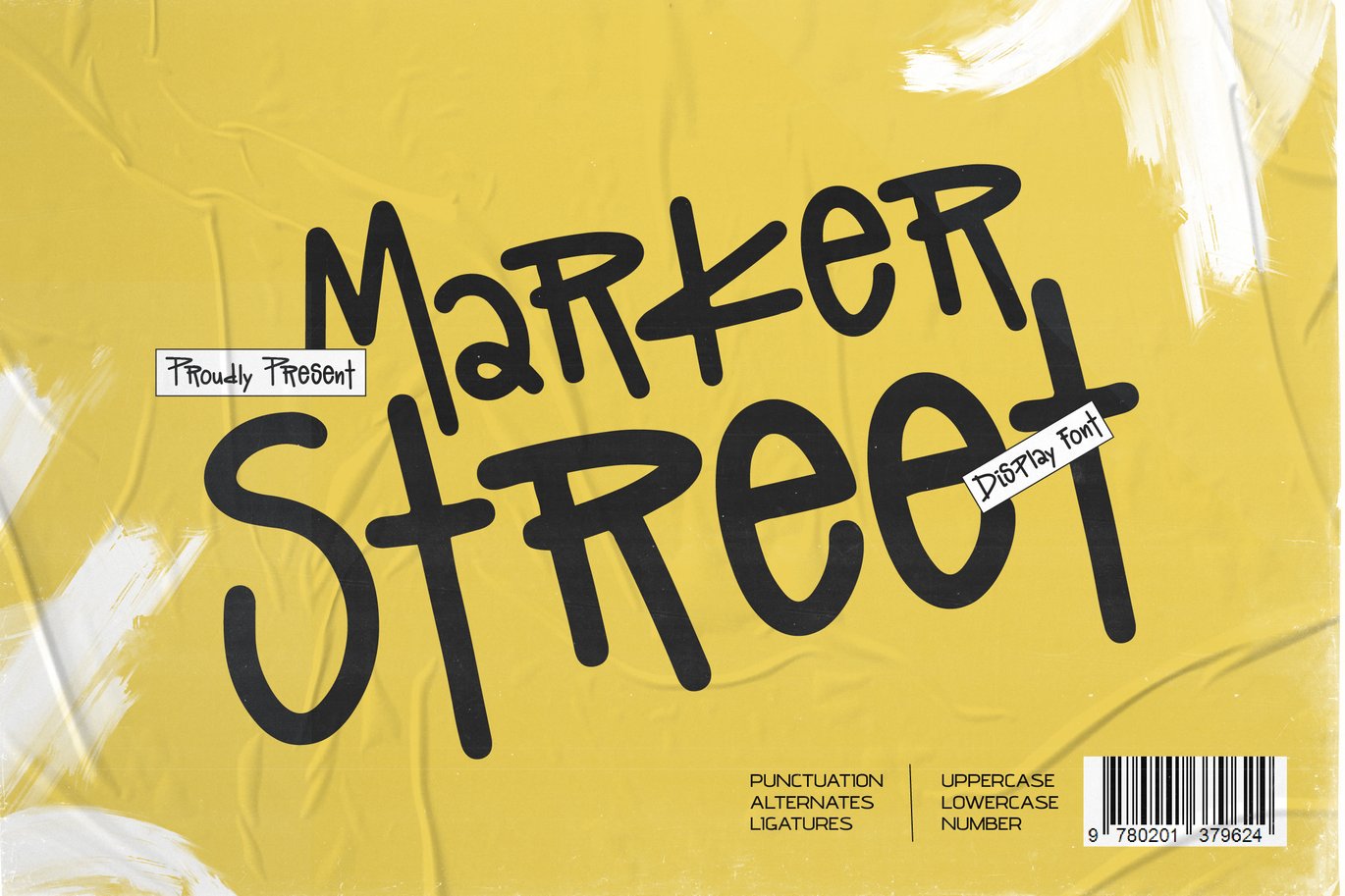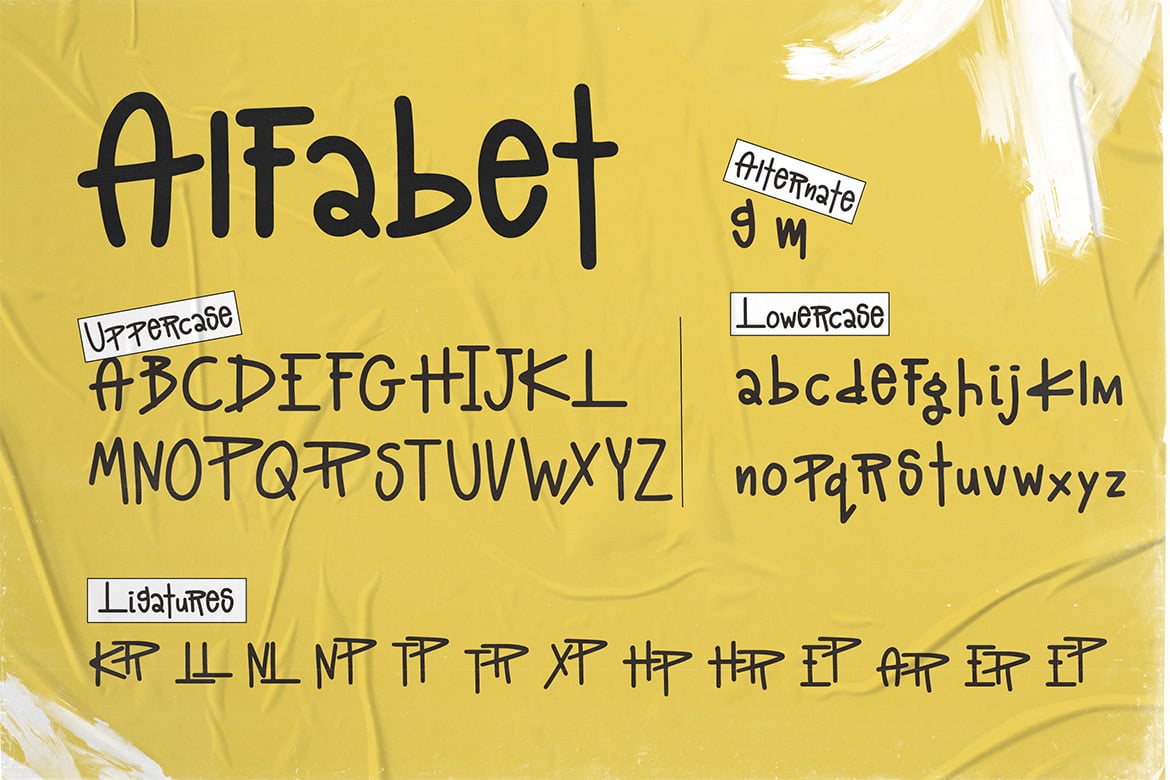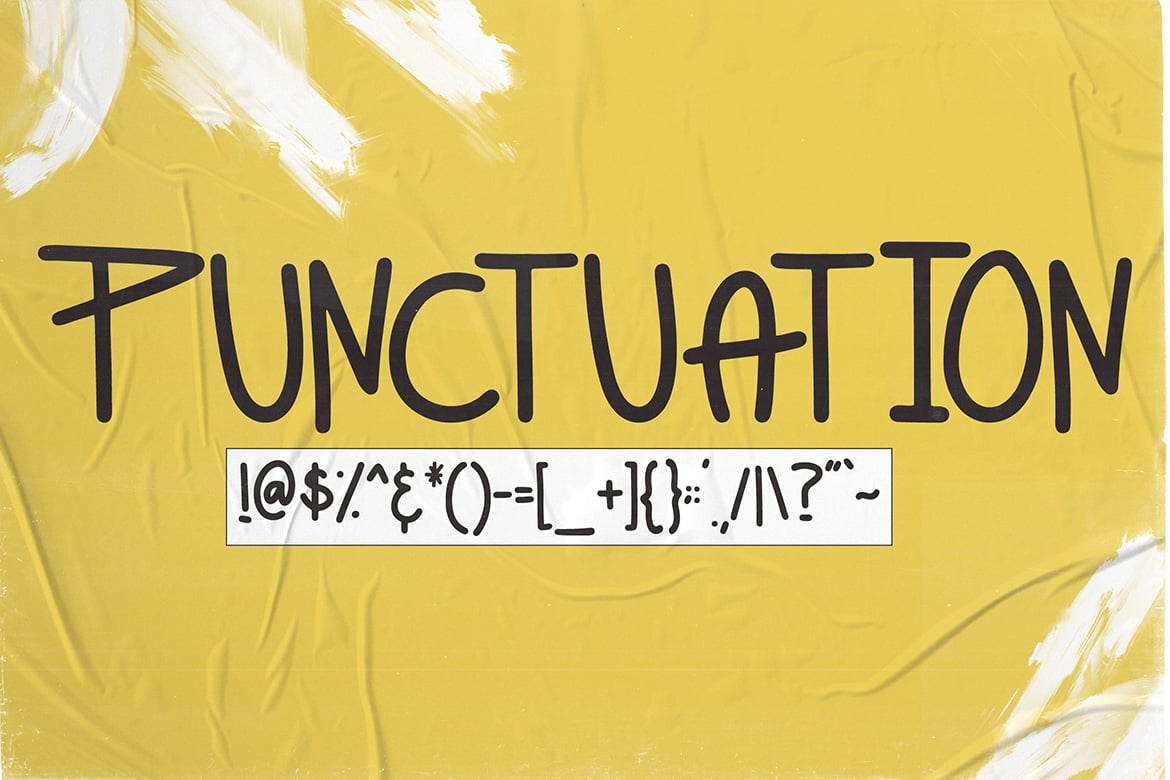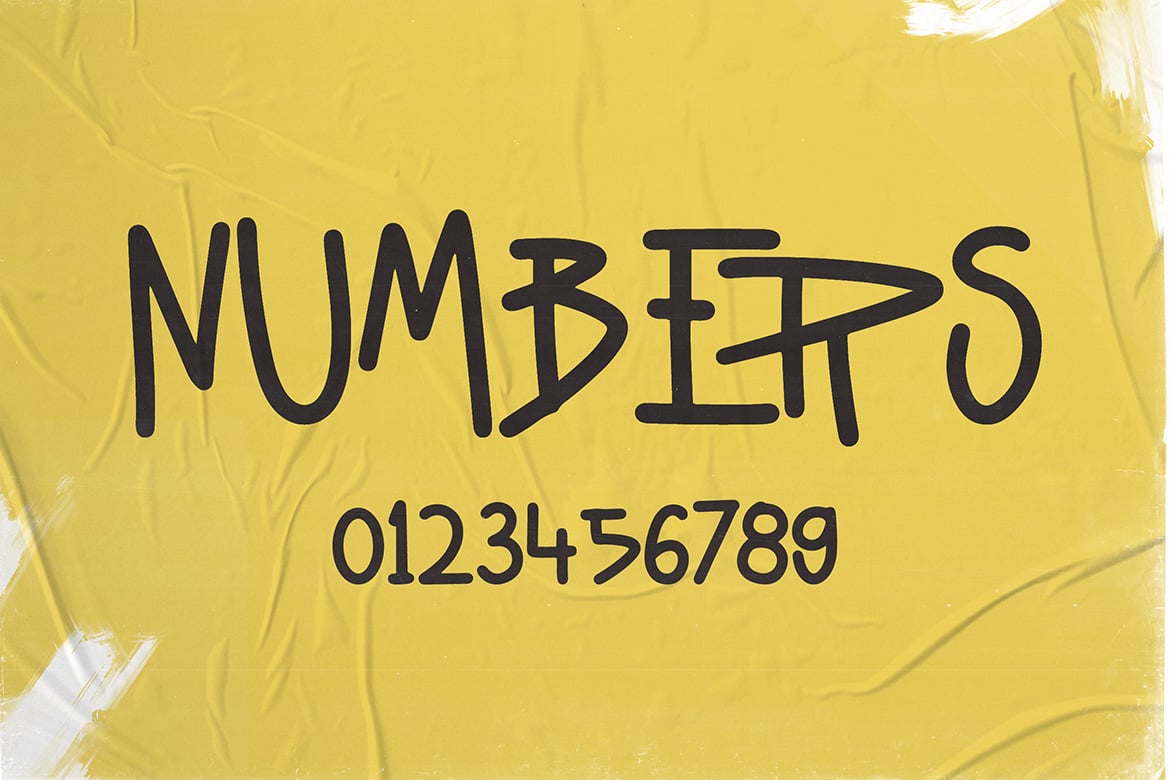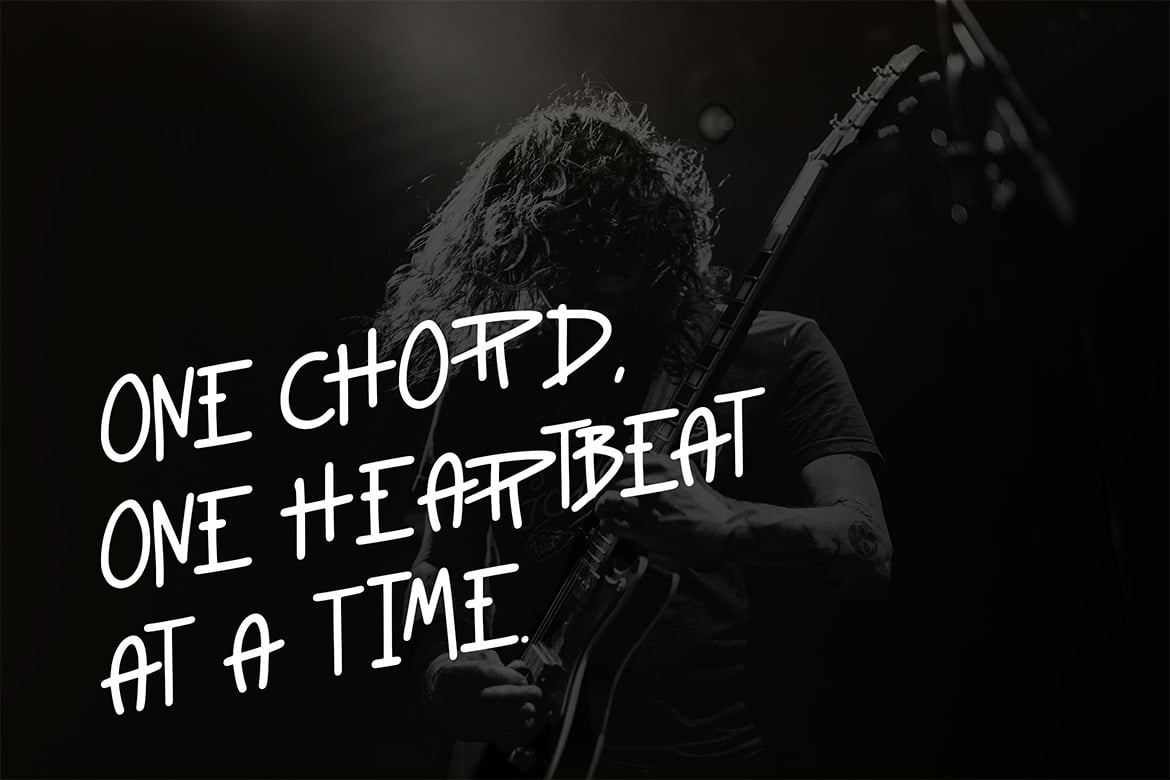
Marker Street – Handwritten Urban Font
Marker Street Urban style Display Font is suitable for greeting cards, invitations, posters, Music Event, books cover, quotes, logos, presentations, headline, etc. Marker Street will turn any creative idea into a true piece of art and is ready to make your design looks great and fun!
- Alternates & Ligature